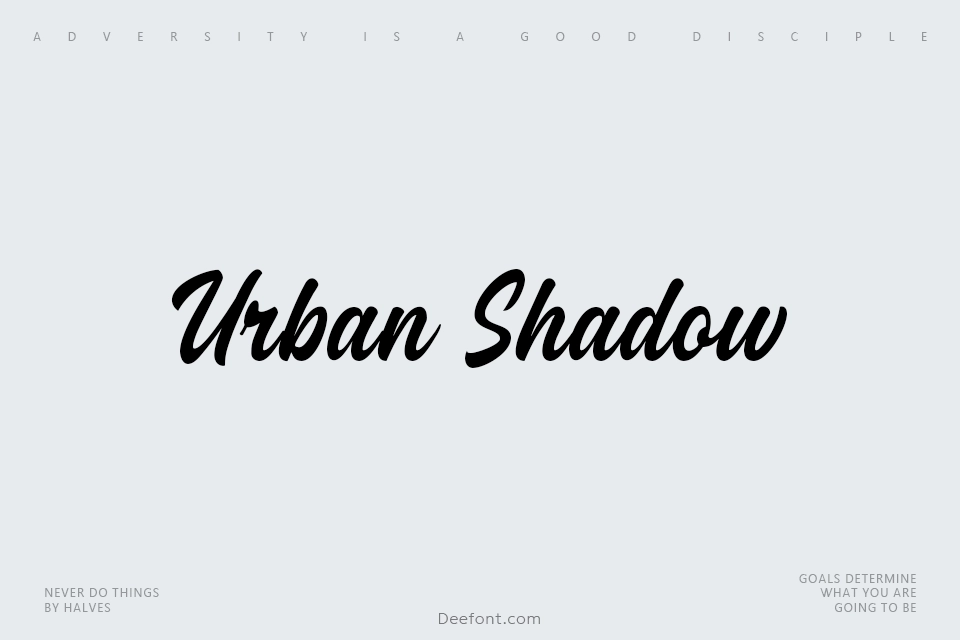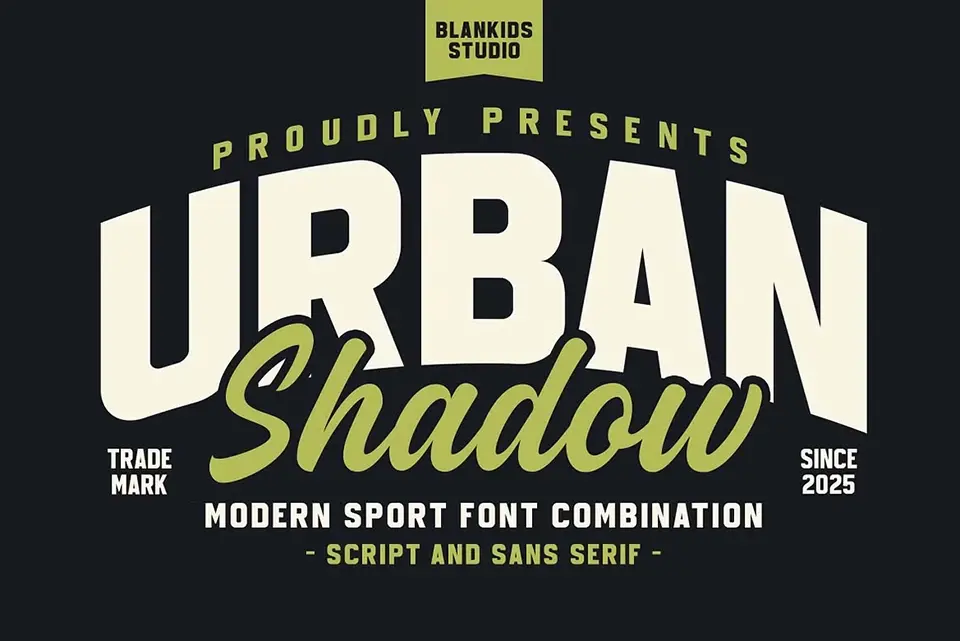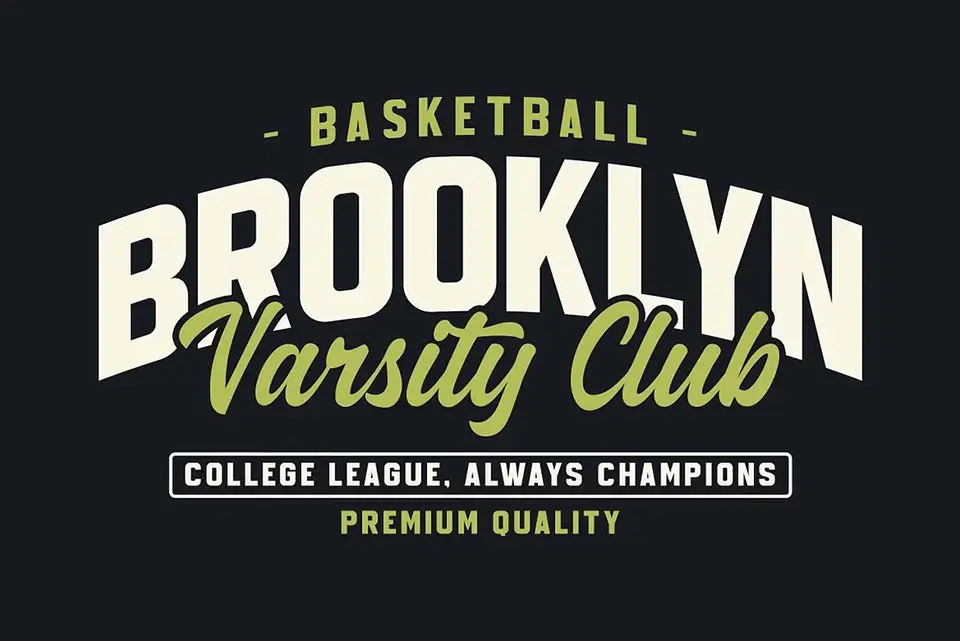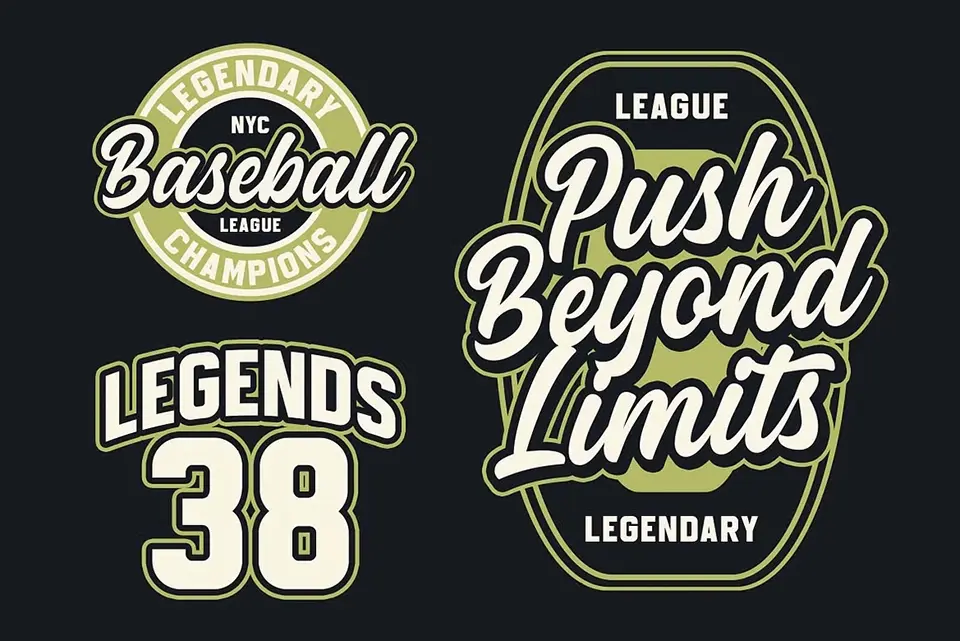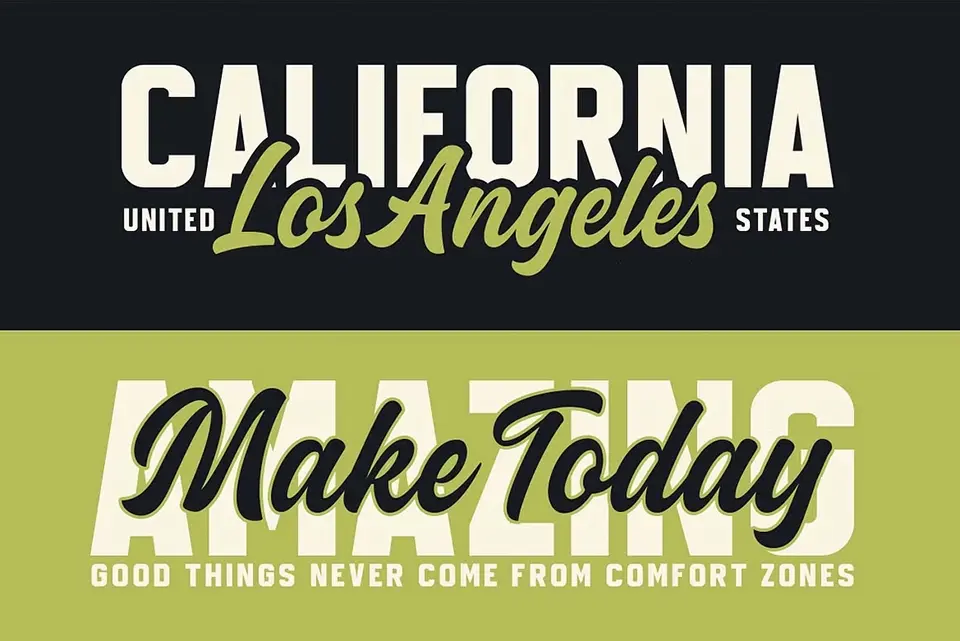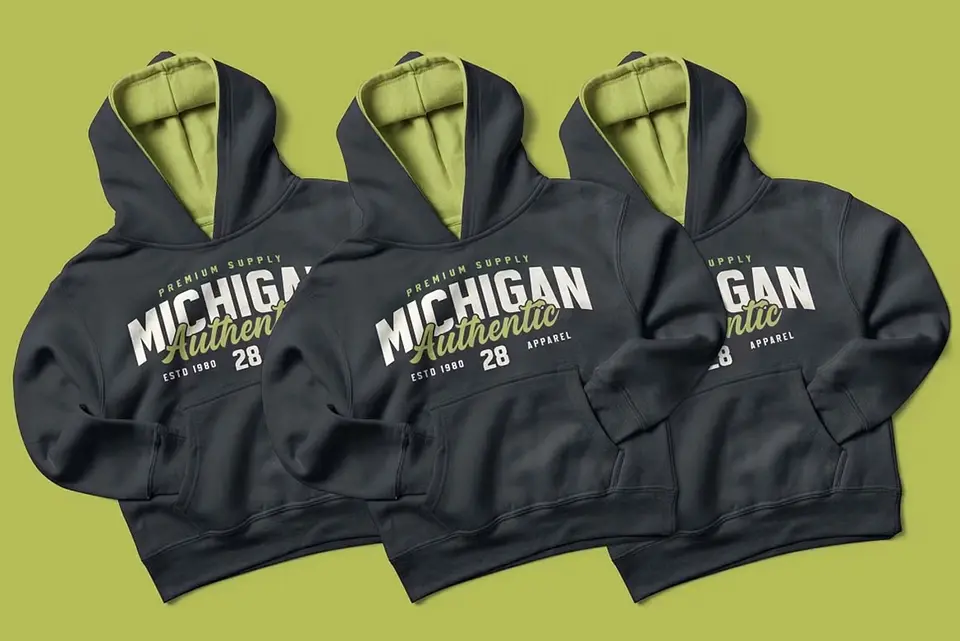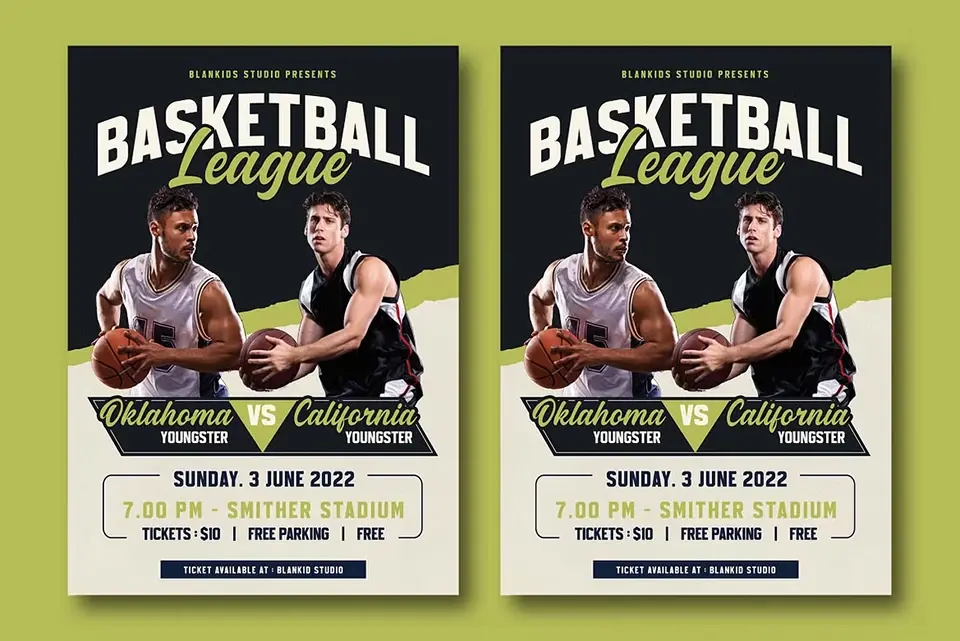
Urban Shadow Script Font
Urban Shadow Sans Serif is a modern sports-inspired sans-serif font combining contemporary design with athletic flair. Each character features a distinctive varsity college style, making it perfect for bold logos, branding, posters, and professional projects. With comprehensive character support and professional letterforms, this versatile typeface delivers impact and clarity for both digital and print applications. The font includes uppercase and lowercase letters, numerals, and punctuation marks with stylistic alternates for enhanced design flexibility.